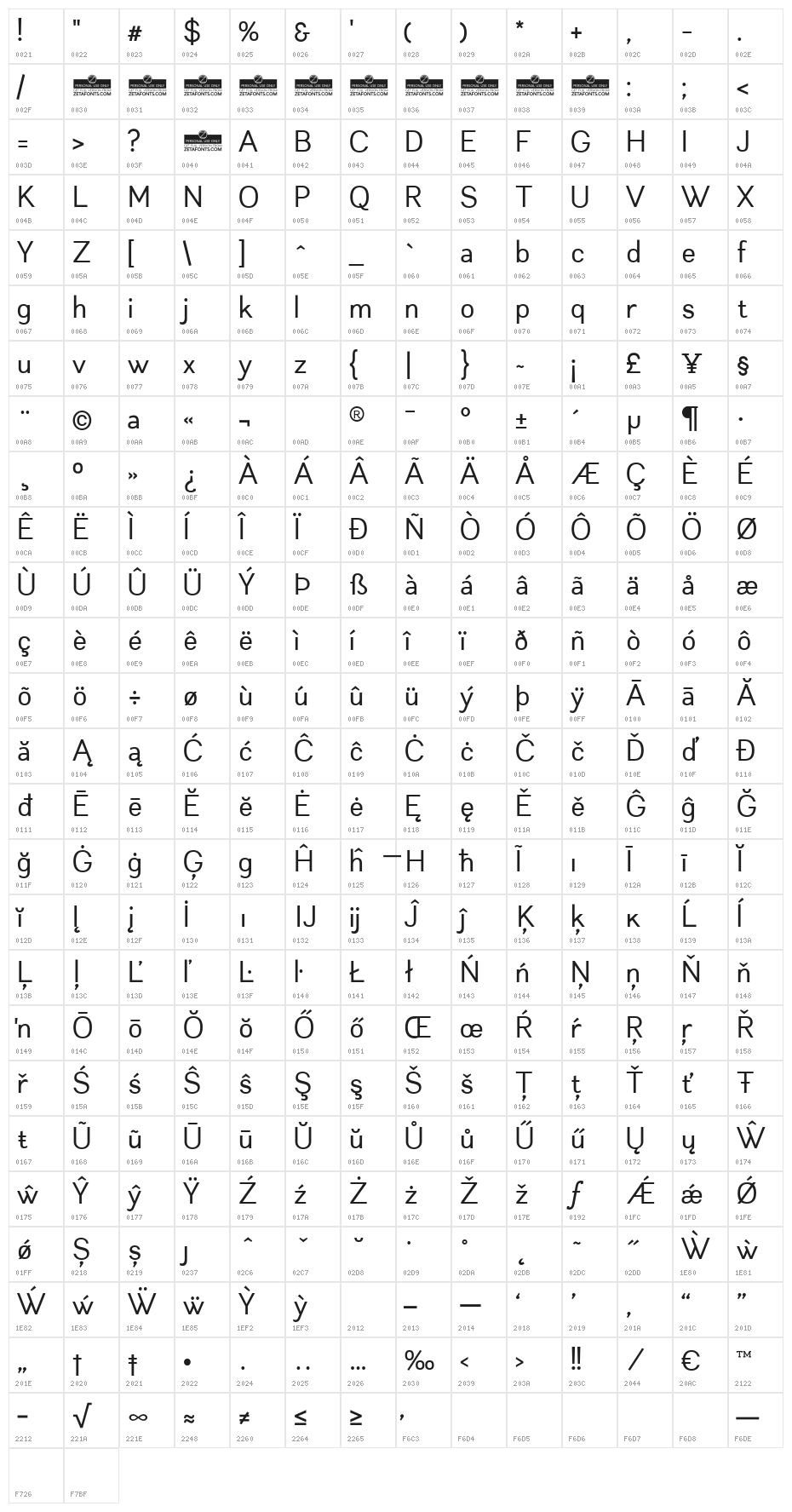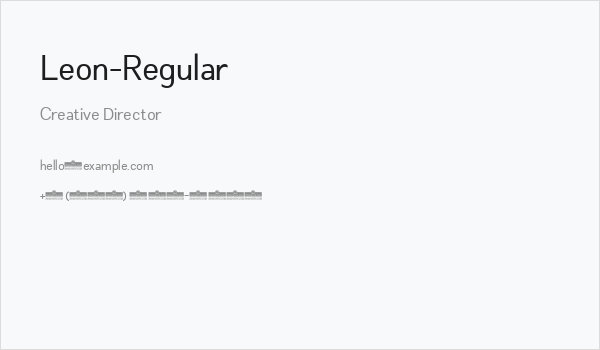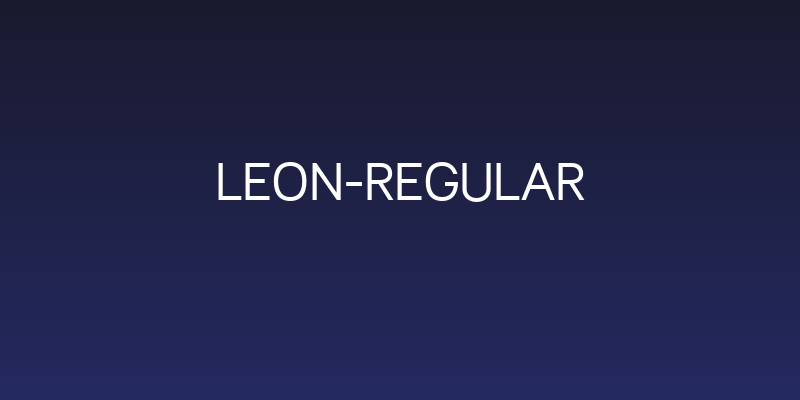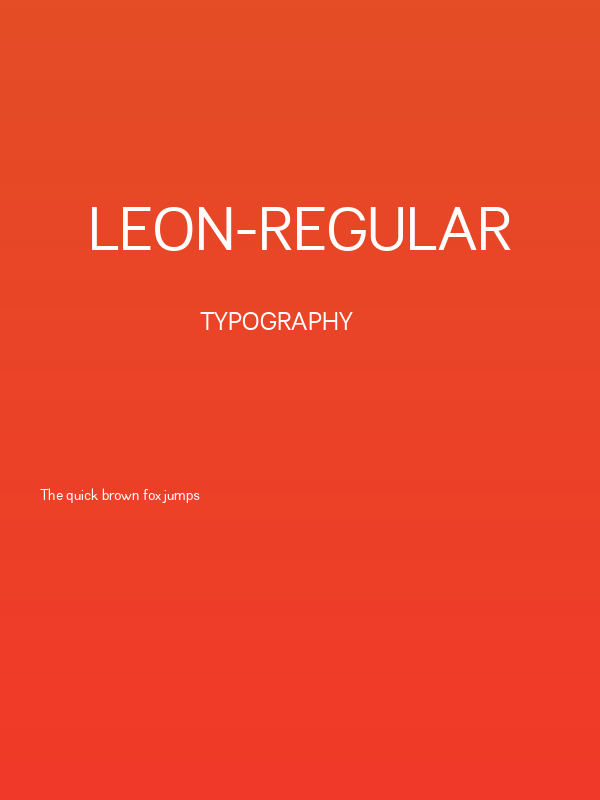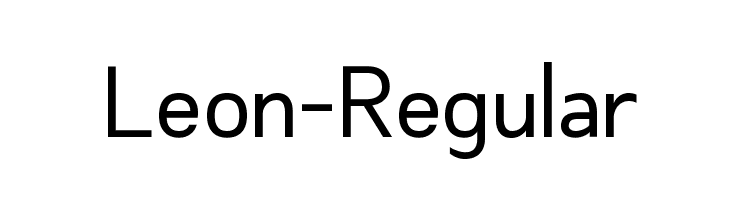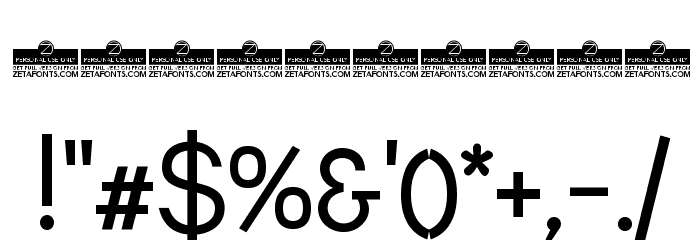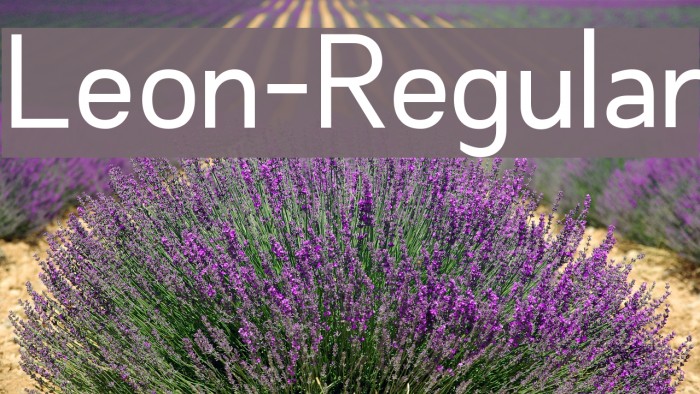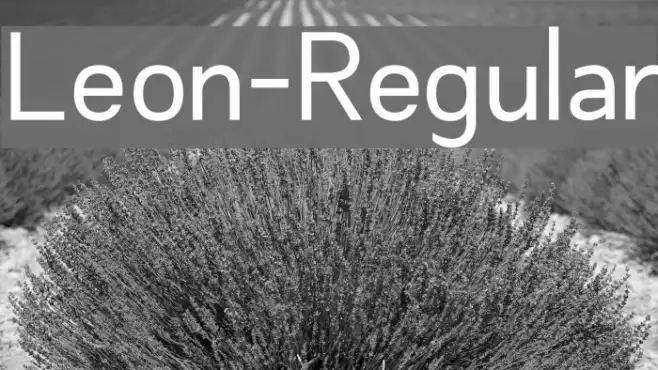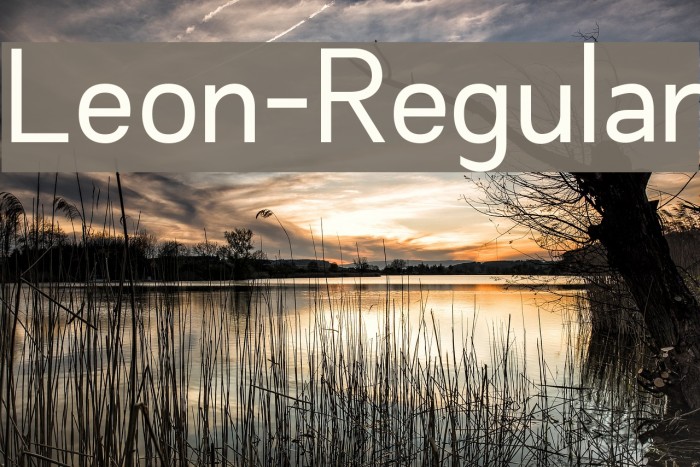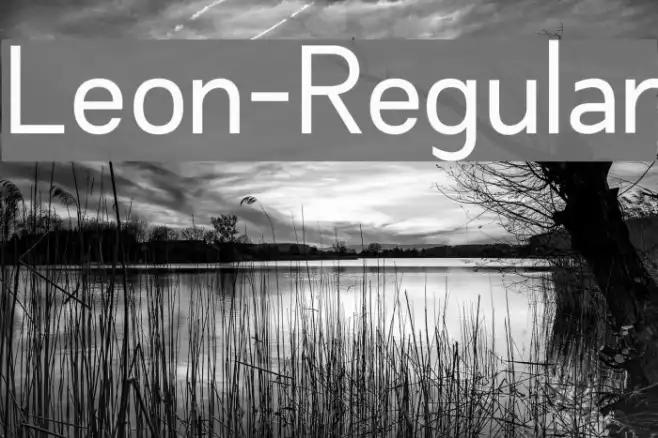
Leon-Regular Font
✎ Sans Serif
Leon-Regular Description
This font features a clean and modern sans-serif design, characterized by its simplicity and clarity. The letters are evenly spaced, with a consistent stroke width that provides a uniform appearance. The uppercase letters are bold and commanding, while the lowercase letters maintain a friendly and approachable feel. The numerals are clear and easy to read, making them suitable for a variety of applications. Special characters are well-defined, adding versatility to the font's use. Overall, this font is highly legible and versatile, suitable for both digital and print media.
| Use Case | Headlines, Body text, Logos |
| Proposed Projects | Ideal for branding, web design, advertising, and editorial projects. |